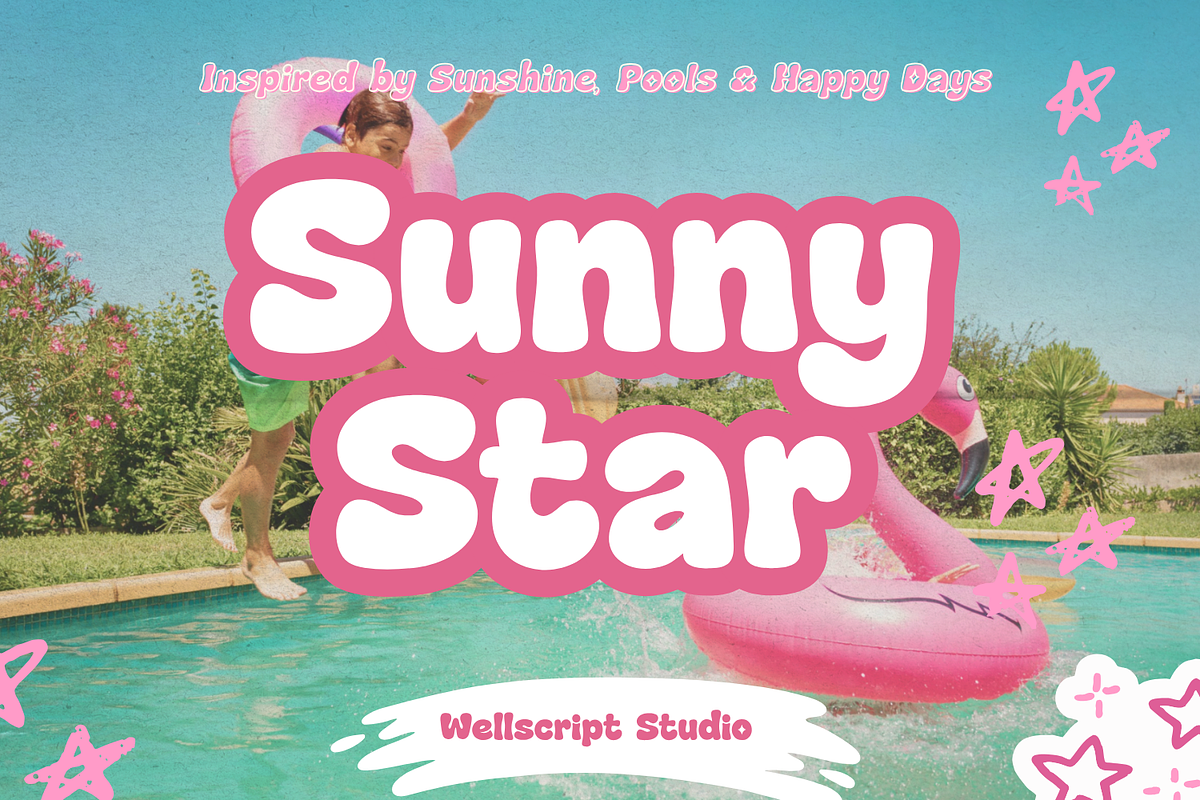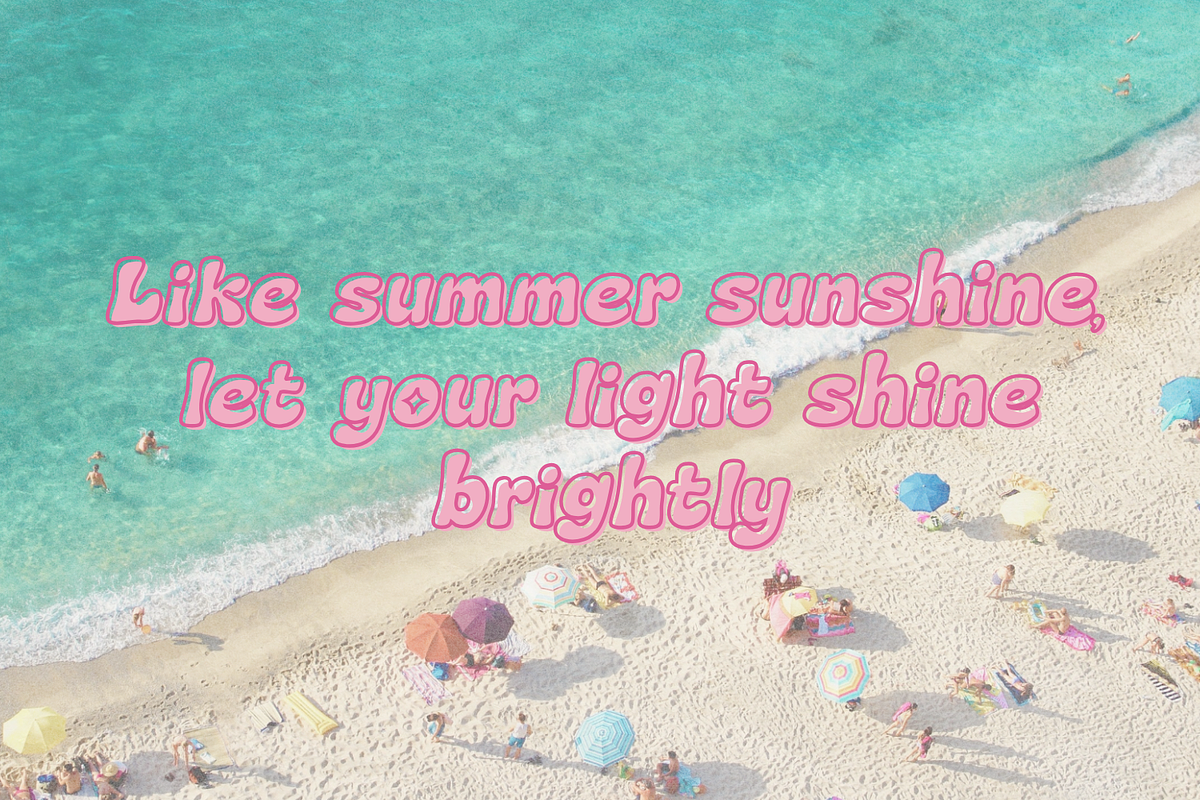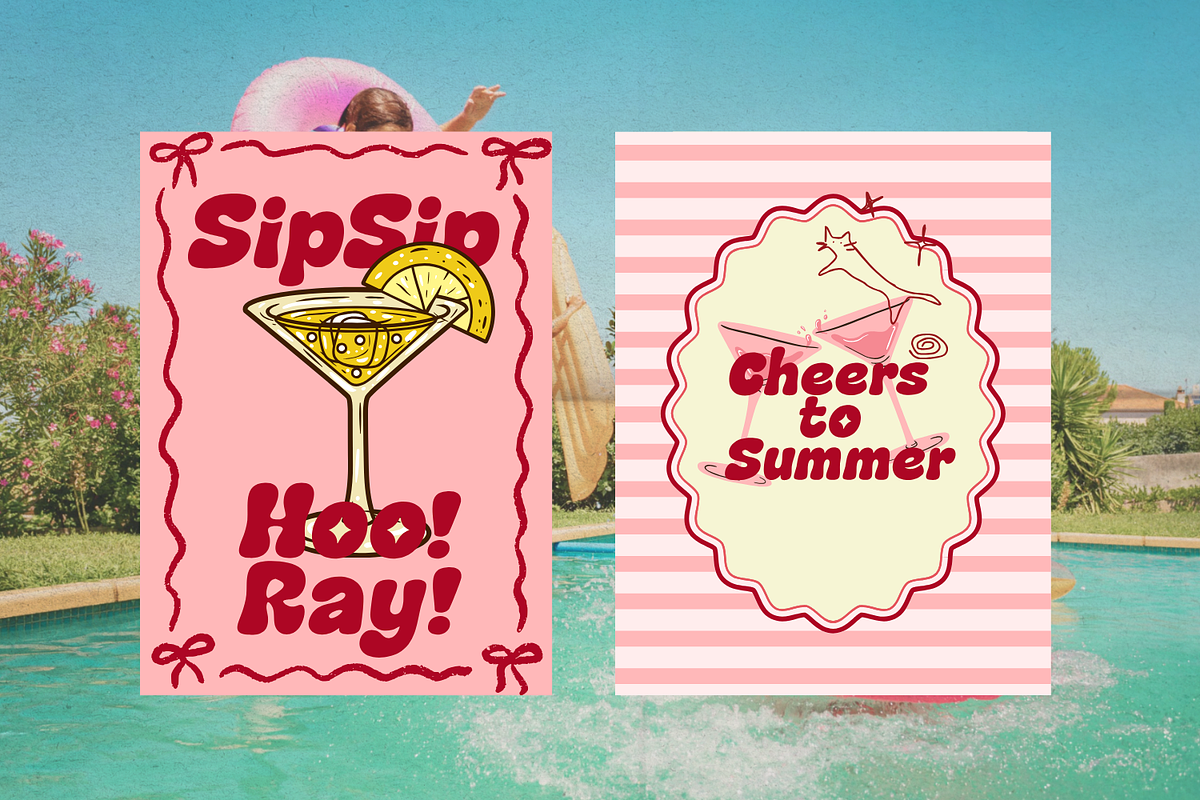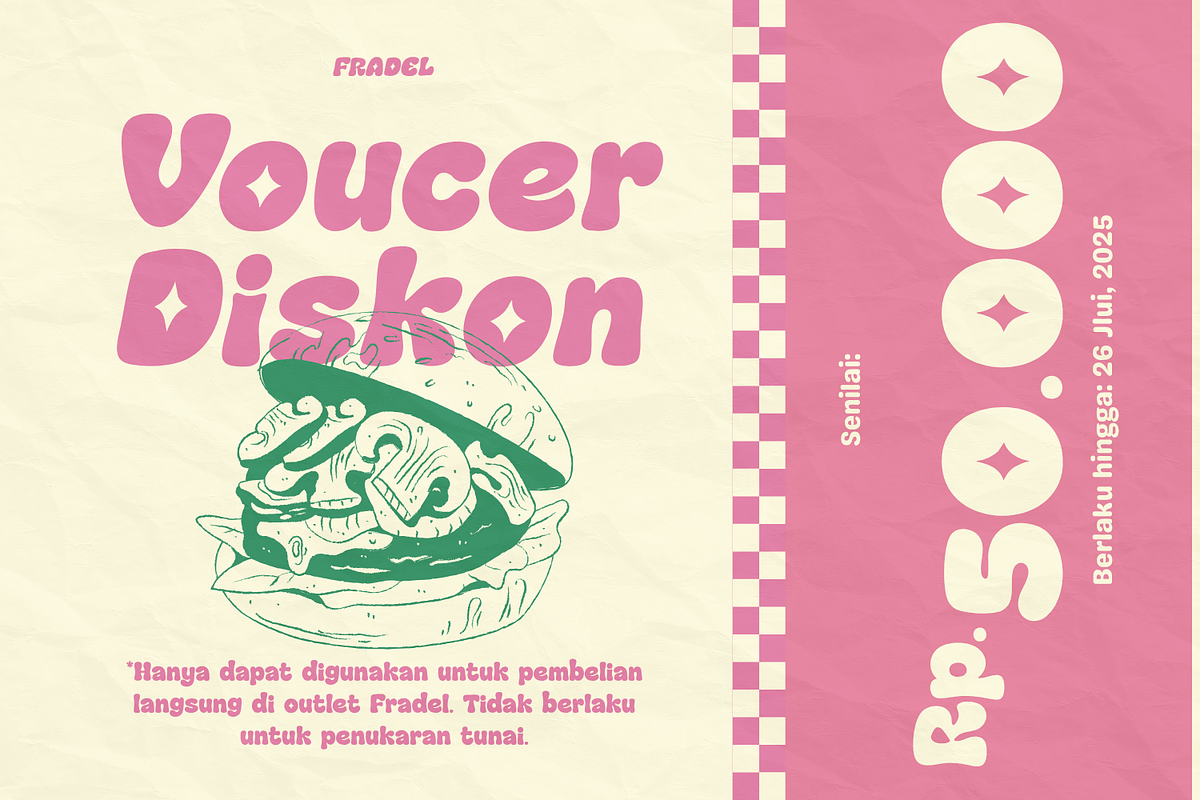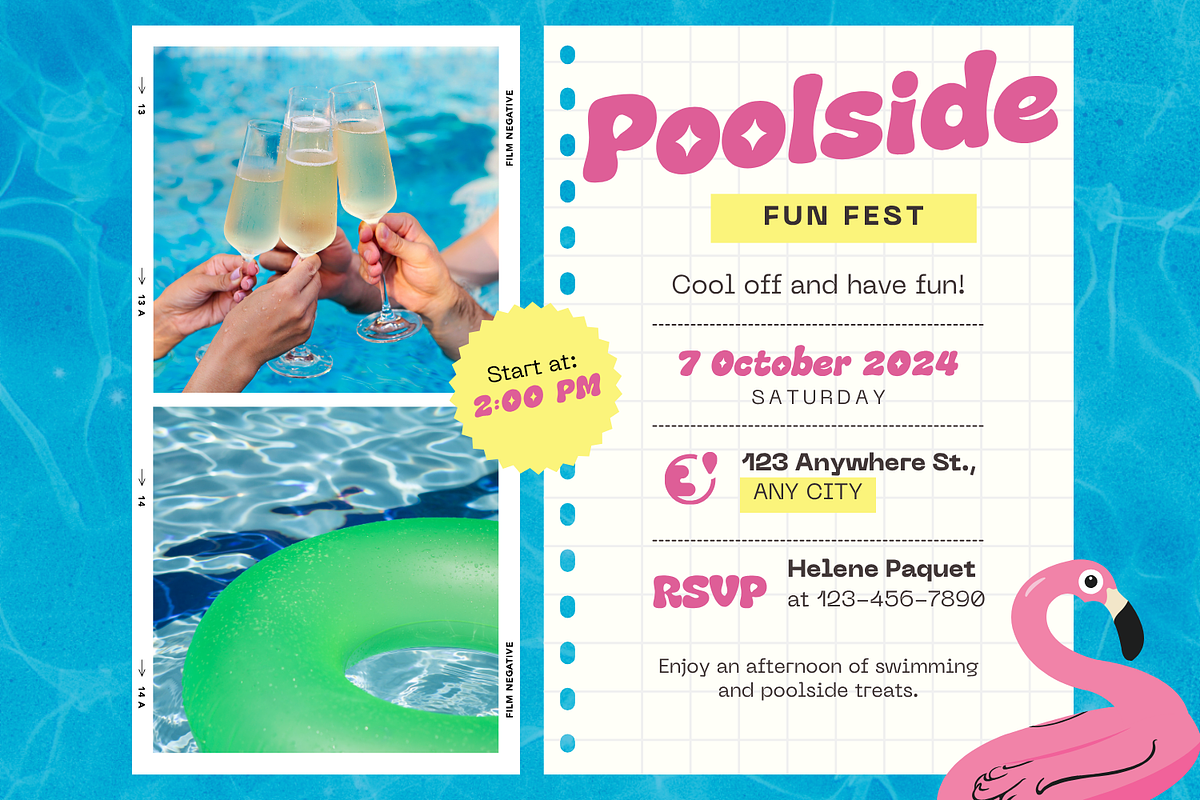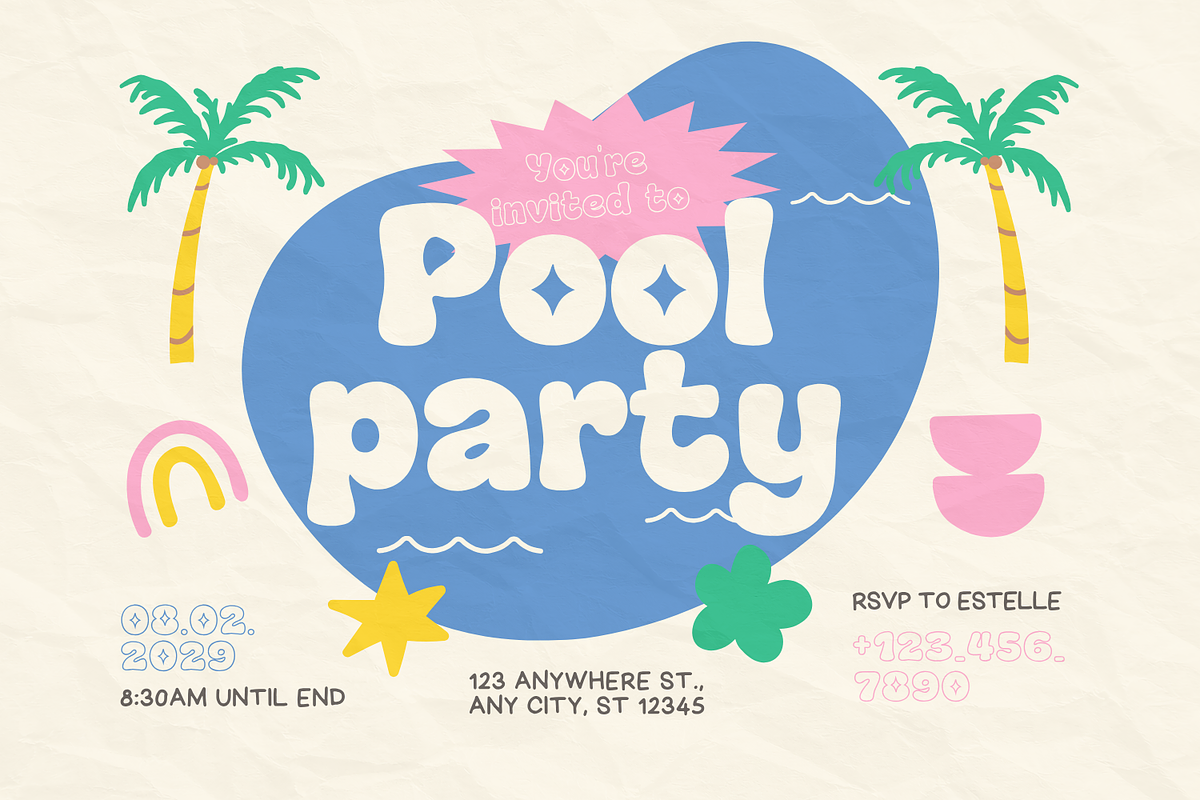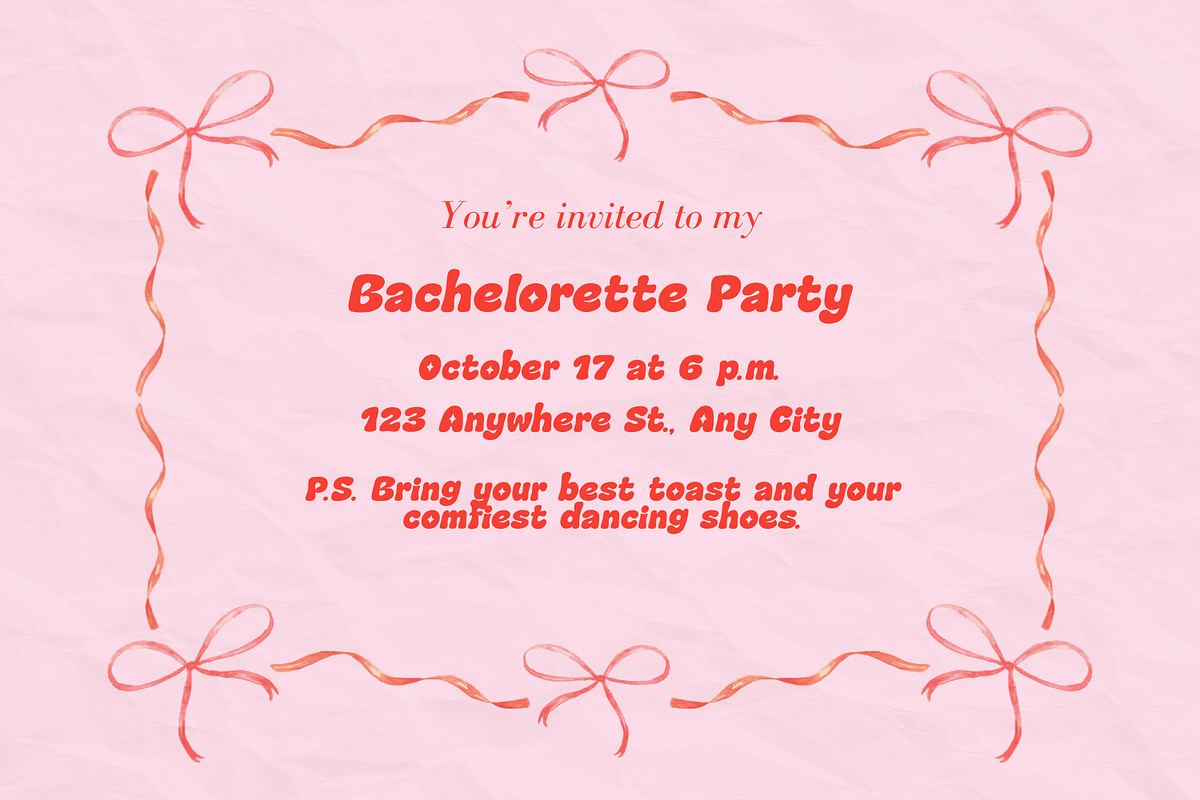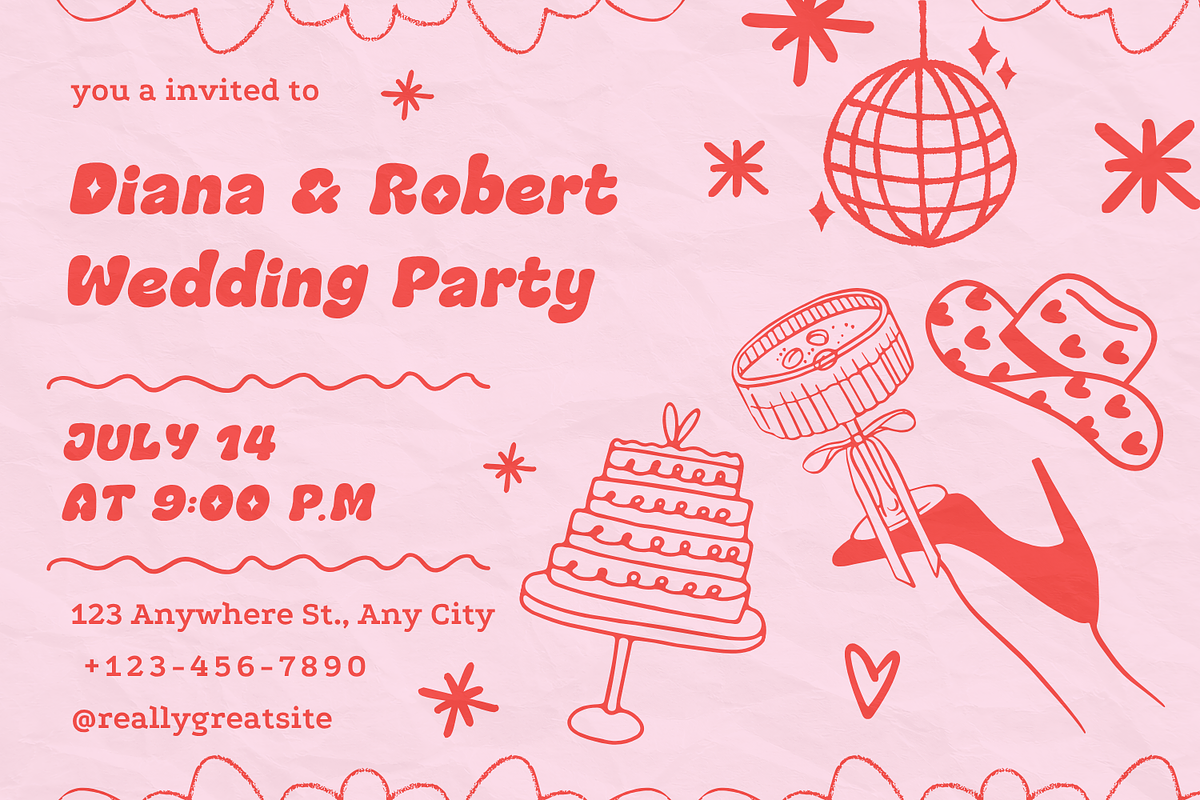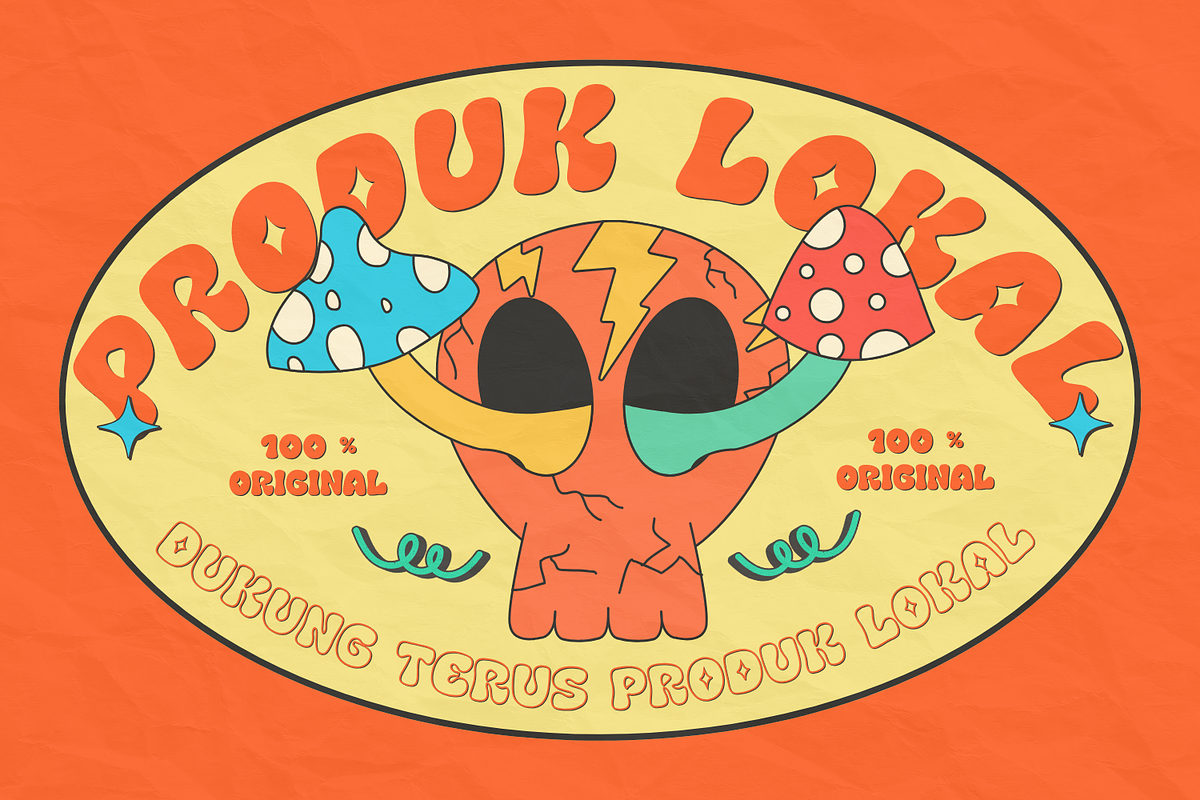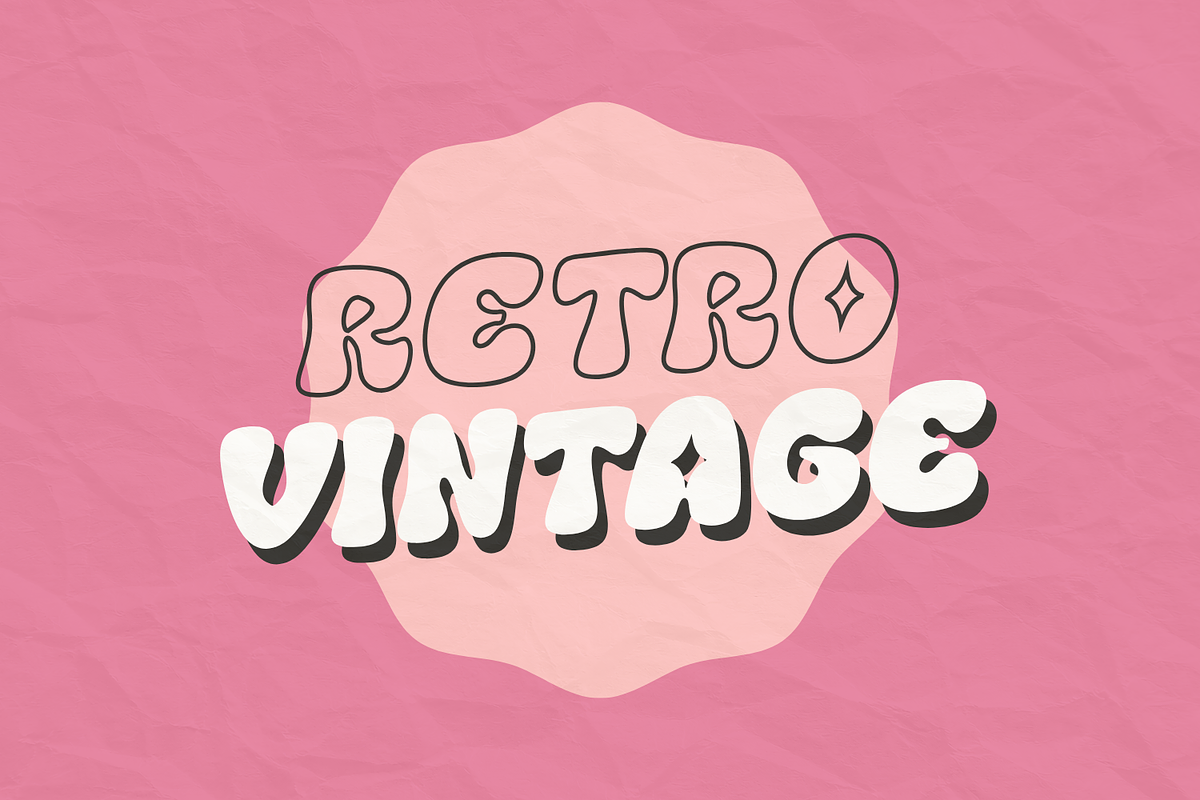
Sunny Star - Summer Display Font
Meet Sunny Star, a fun and cheerful bubble font inspired by sunshine, summer days, and happy memories. With its bold, rounded shapes and playful personality, Sunny Star is perfect for summer branding, kids projects, party invitations, packaging, stickers, social media graphics, and more.
Regular & Outline Styles